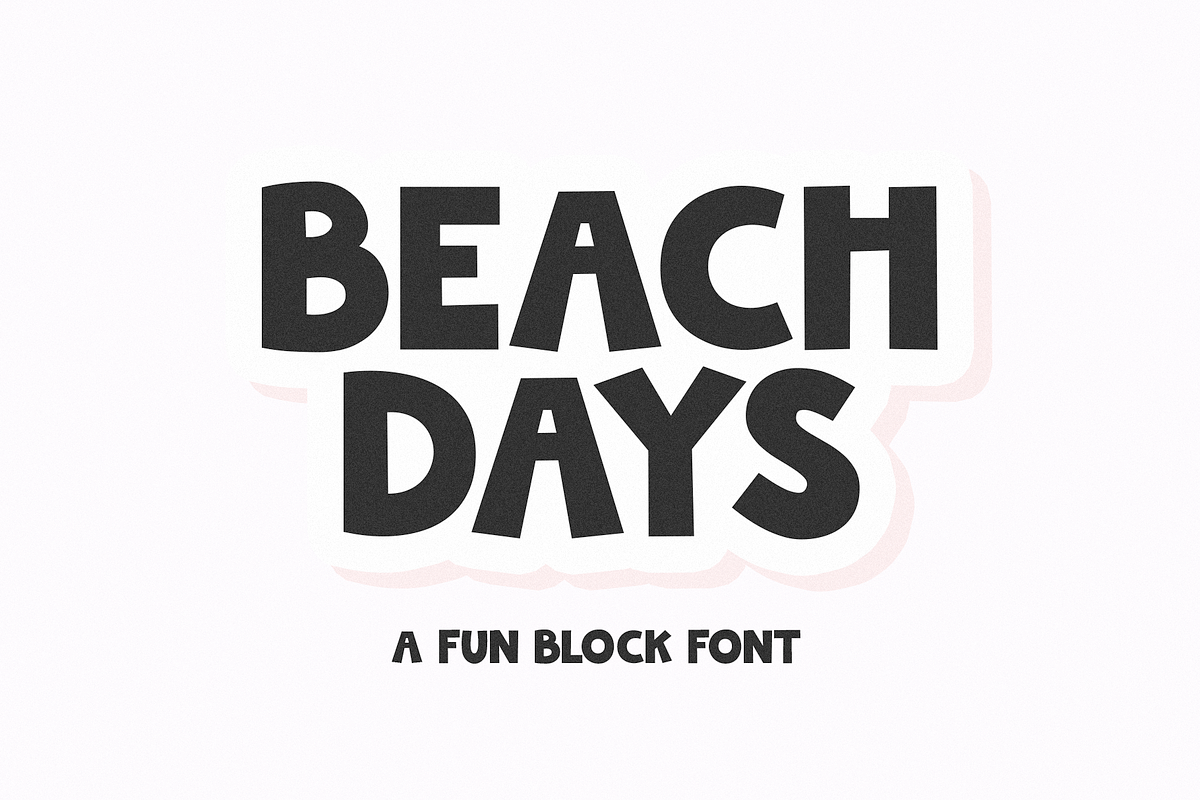
Beach Days | Bold Block Font Free Download
Beach Days | Bold Block Font Free Download is a vibrant and eye-catching typeface made to shine under the summer sun. With its strong lines and confident style, this font is perfect for beach party flyers, travel merch, bold headlines, and anything that screams fun in the sun.
The clean, chunky design of Beach Days | Bold Block Font Free Download makes it incredibly readable while still full of personality. Whether you're designing t-shirts, posters, vacation guides, or sun-soaked social media posts, this font brings that laid-back coastal vibe to life.
It's playful, powerful, and designed to stand out—just like the best summer memories. Pair it with pastel color palettes or vintage textures for a retro-beach look, or go bold with brights for that pop-art punch.
Say goodbye to boring fonts—Beach Days is here to turn up the heat on your creativity.